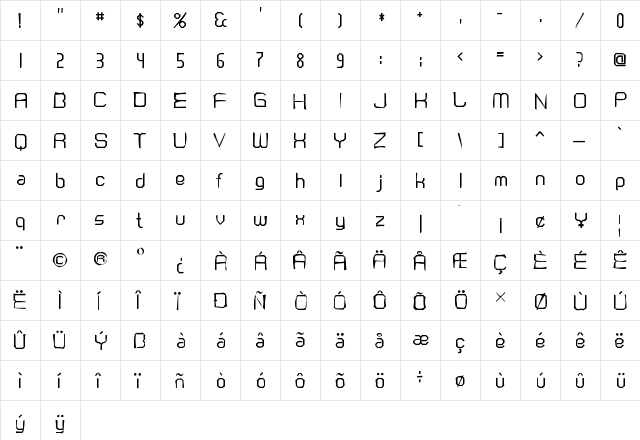
Cranberry Gin Gaunt Regular
Design Context for Cranberry Gin Gaunt Typeface
Cranberry Gin Gaunt offers clean, dependable letterforms without strong stylistic allegiance, making it a practical choice for designers who need flexibility.